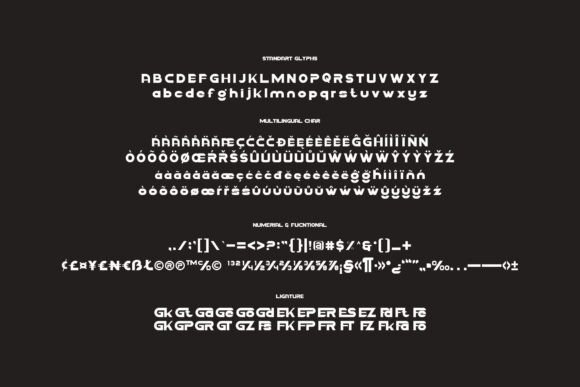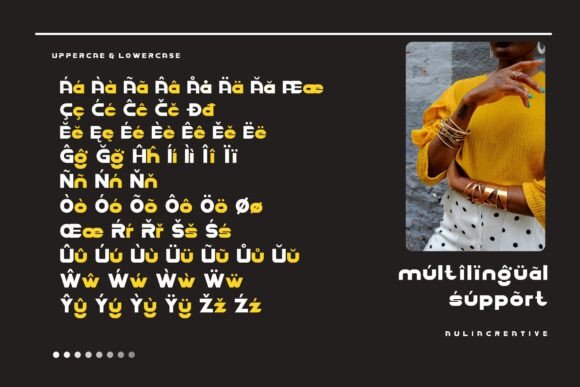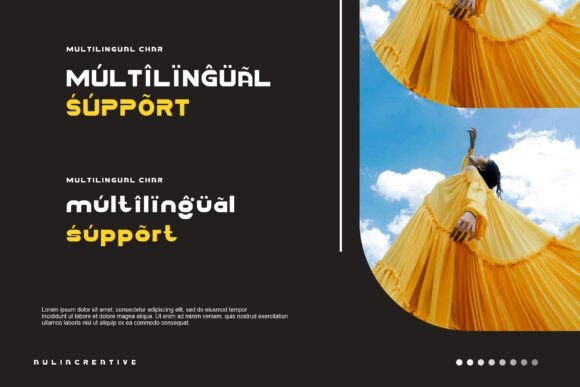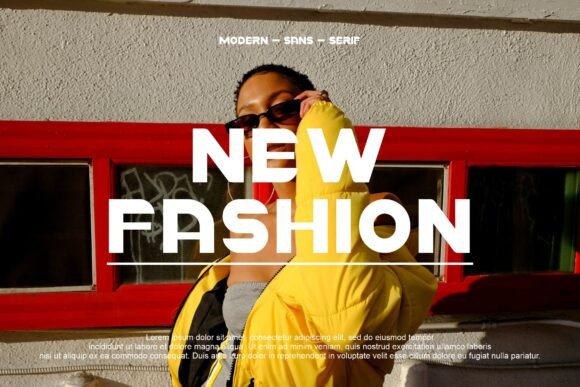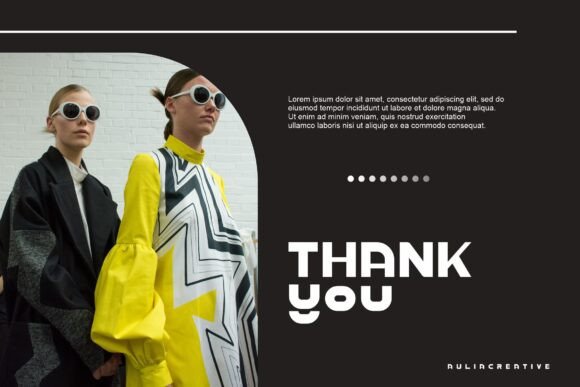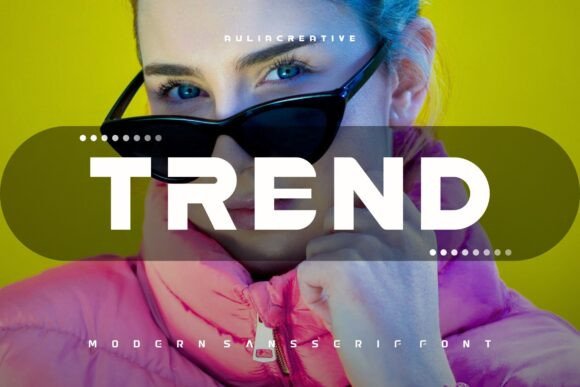
Bolen Font: Elevate Your Designs with a Bold and Assertive Sans Serif Font
In the world of typography, a font can make or break a design. A well-chosen font can elevate a creation from ordinary to extraordinary, while a poorly chosen one can detract from the overall impact. For designers and crafters looking to add a bold and assertive touch to their work, the Bolen font is an excellent choice. In this article, we’ll explore the features and benefits of Bolen, a sans serif font that is sure to become an incredible asset to your font library.
The Characteristics of Bolen Font
Bolen is a bold and assertive sans serif font, designed to make a statement. Its clean lines, precise curves, and confident strokes make it perfect for a wide range of applications, from headings and titles to logos and branding. The font’s bold nature ensures that it will grab attention, while its sans serif design provides a modern and sleek look.
Key Features of Bolen Font
- Bold and Assertive: Bolen is a font that demands attention. Its bold strokes and confident design make it perfect for creating eye-catching headings and titles.
- Sans Serif Design: The font’s sans serif design provides a modern and sleek look, making it perfect for designs that require a clean and minimalist aesthetic.
- Versatile: Bolen is a versatile font that can be used for a wide range of applications, from print to digital media.
- Easy to Read: Despite its bold nature, Bolen is easy to read, making it perfect for body text and other applications where legibility is important.
Benefits of Using Bolen Font
So, why should you choose Bolen font for your next design project? Here are just a few benefits of using this incredible font:
- Elevate Your Designs: Bolen has the potential to elevate any creation, adding a bold and assertive touch that will make your designs stand out.
- Save Time: With Bolen, you can create professional-looking designs in no time. The font’s bold nature and clean design make it easy to use and customize.
- Increase Legibility: Bolen’s easy-to-read design ensures that your message will be communicated clearly, even at small font sizes.
- Stand Out from the Crowd: With Bolen, you can create designs that stand out from the crowd. The font’s unique blend of boldness and sleekness makes it perfect for designers looking to create something truly unique.
How to Use Bolen Font
Using Bolen font is easy. Here are a few tips to get you started:
- Headings and Titles: Use Bolen for headings and titles to add a bold and assertive touch to your designs.
- Logos and Branding: Bolen is perfect for logos and branding, providing a modern and sleek look that will help your brand stand out.
- Body Text: While Bolen is bold, it’s also easy to read, making it suitable for body text and other applications where legibility is important.
| Font Name | Bolen Font |
| Author | Auliacreative |
In conclusion, Bolen font is an incredible asset to any font library. Its bold and assertive design, combined with its versatility and ease of use, make it perfect for designers and crafters looking to elevate their designs. Whether you’re creating headings and titles, logos and branding, or body text, Bolen is a font that will help you create professional-looking designs that stand out from the crowd.